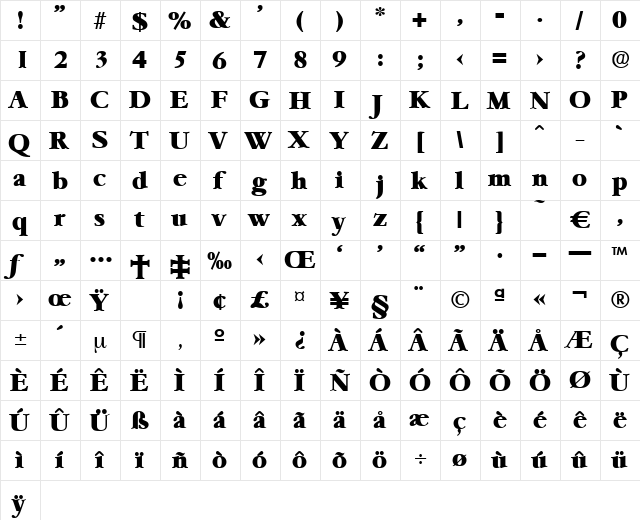
Garemond-Heavy Regular
Design Context for Garemond-Heavy Typeface
Garemond-Heavy offers clean, dependable letterforms without strong stylistic allegiance, making it a practical choice for designers who need flexibility.